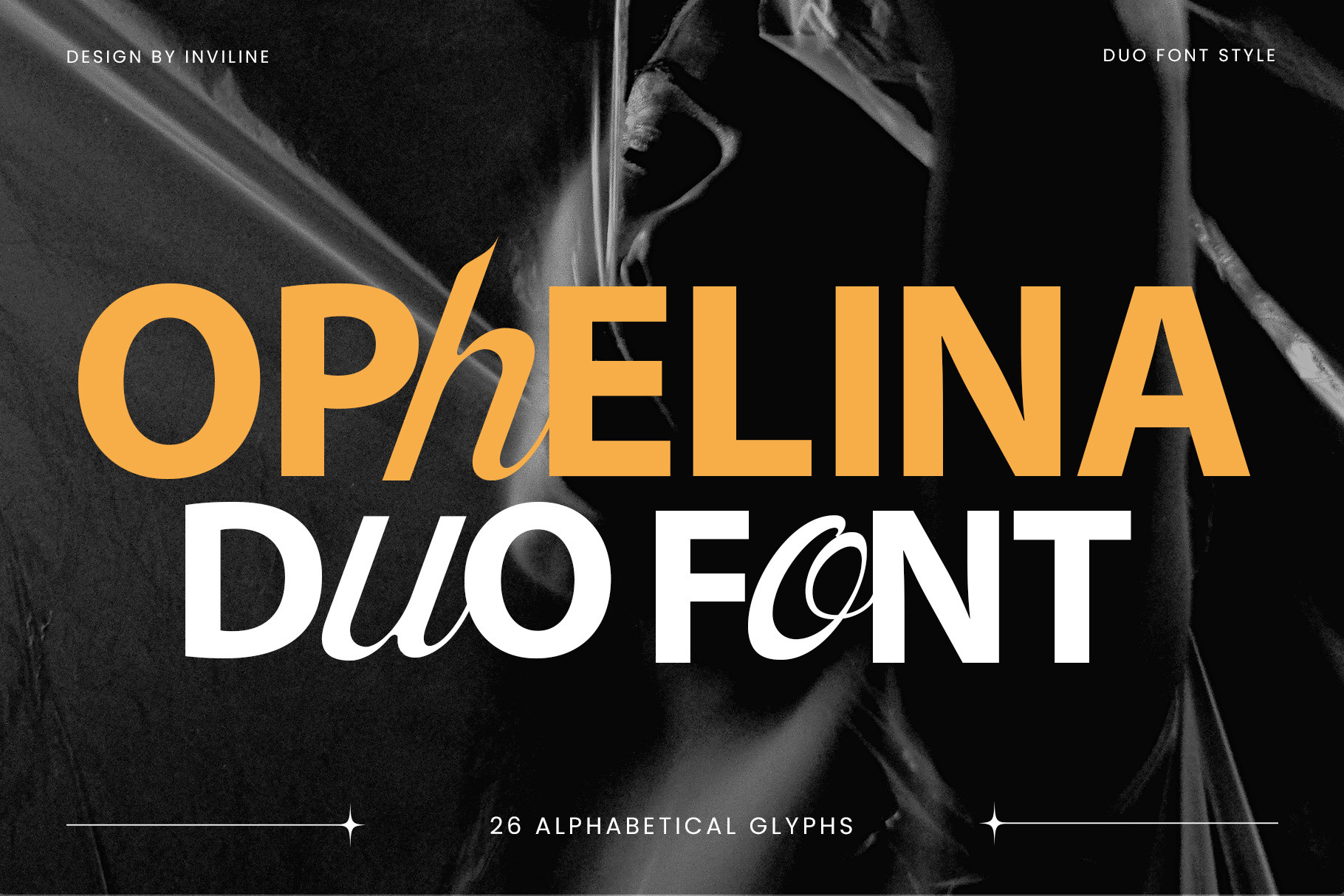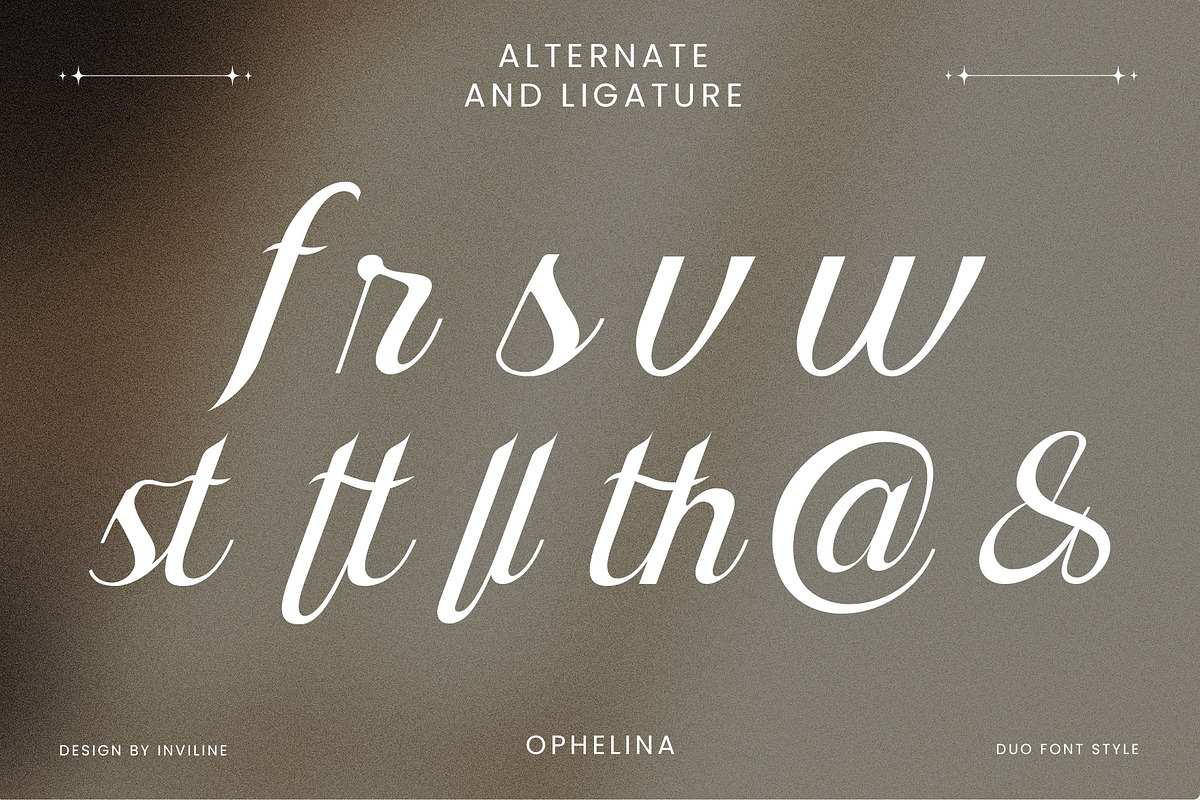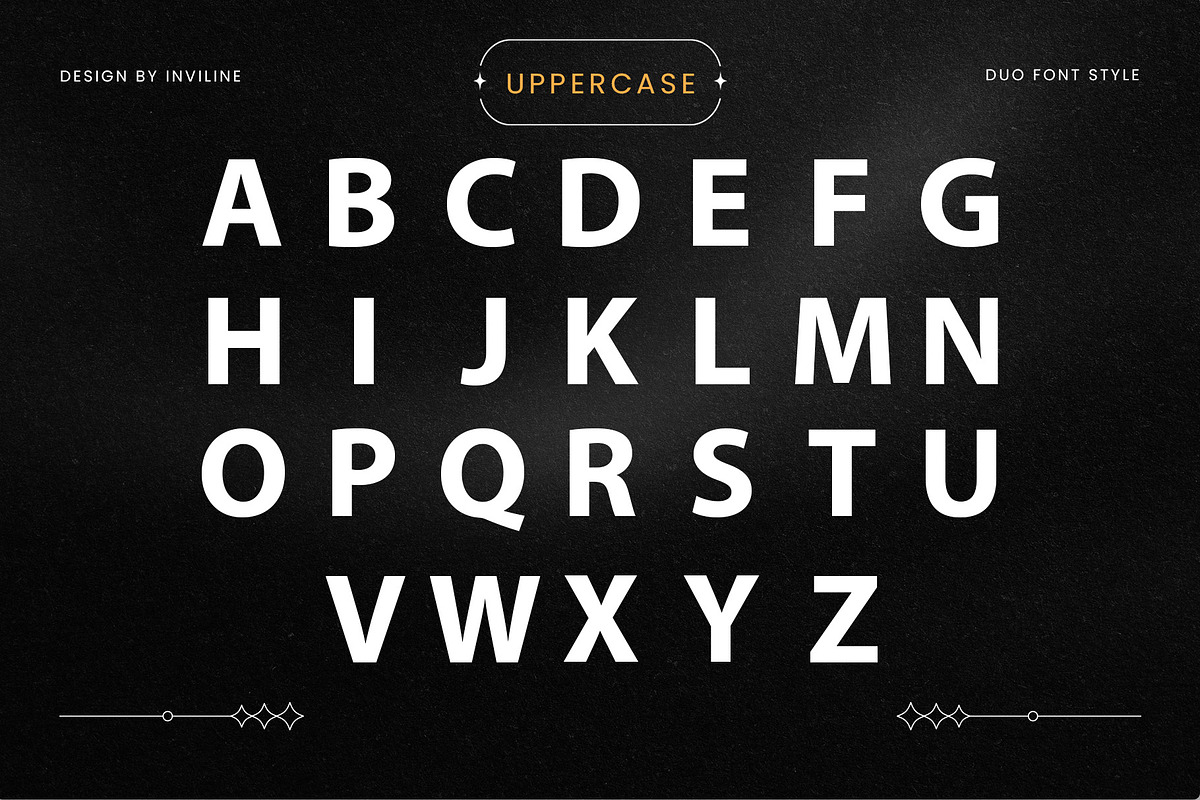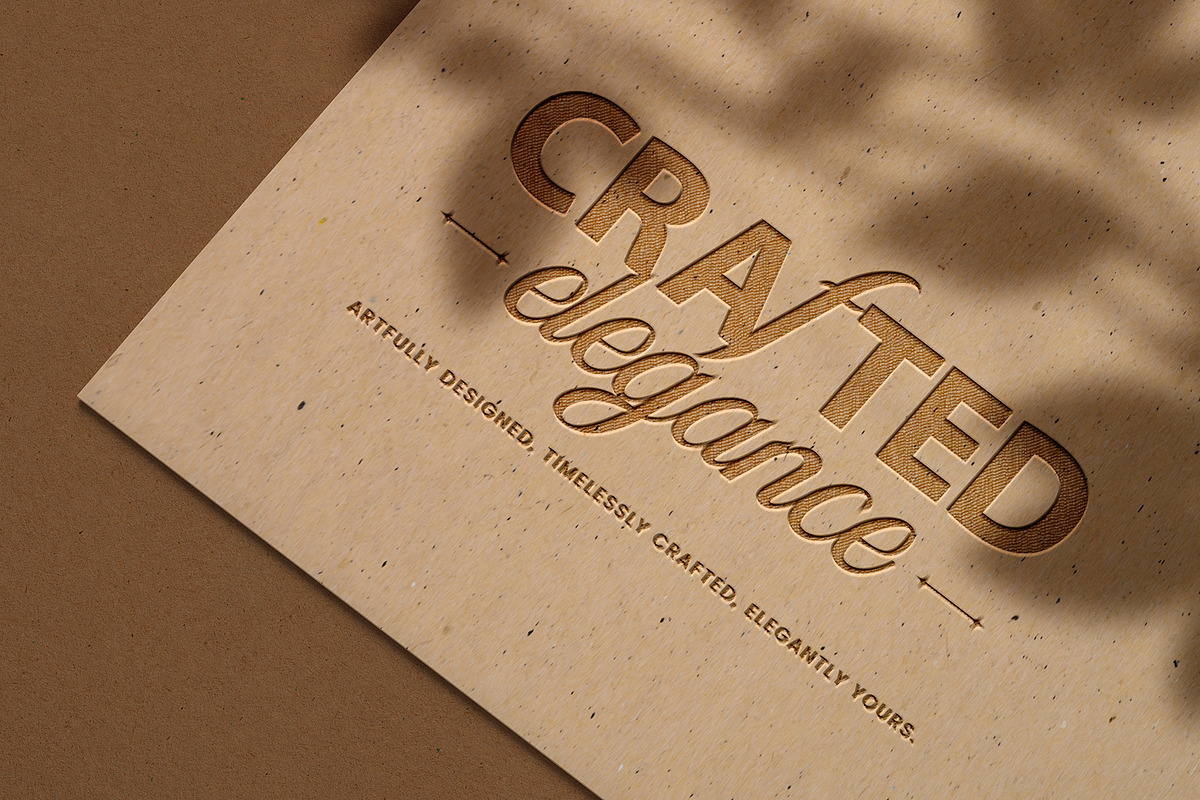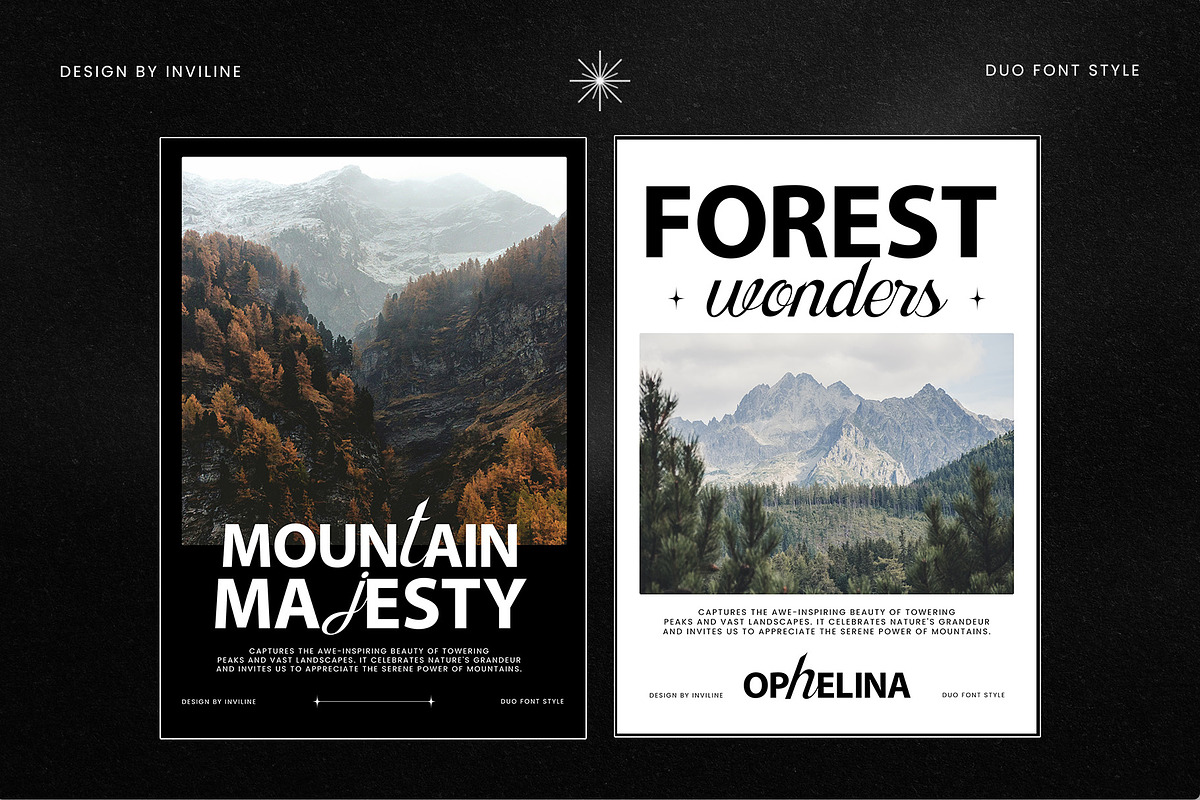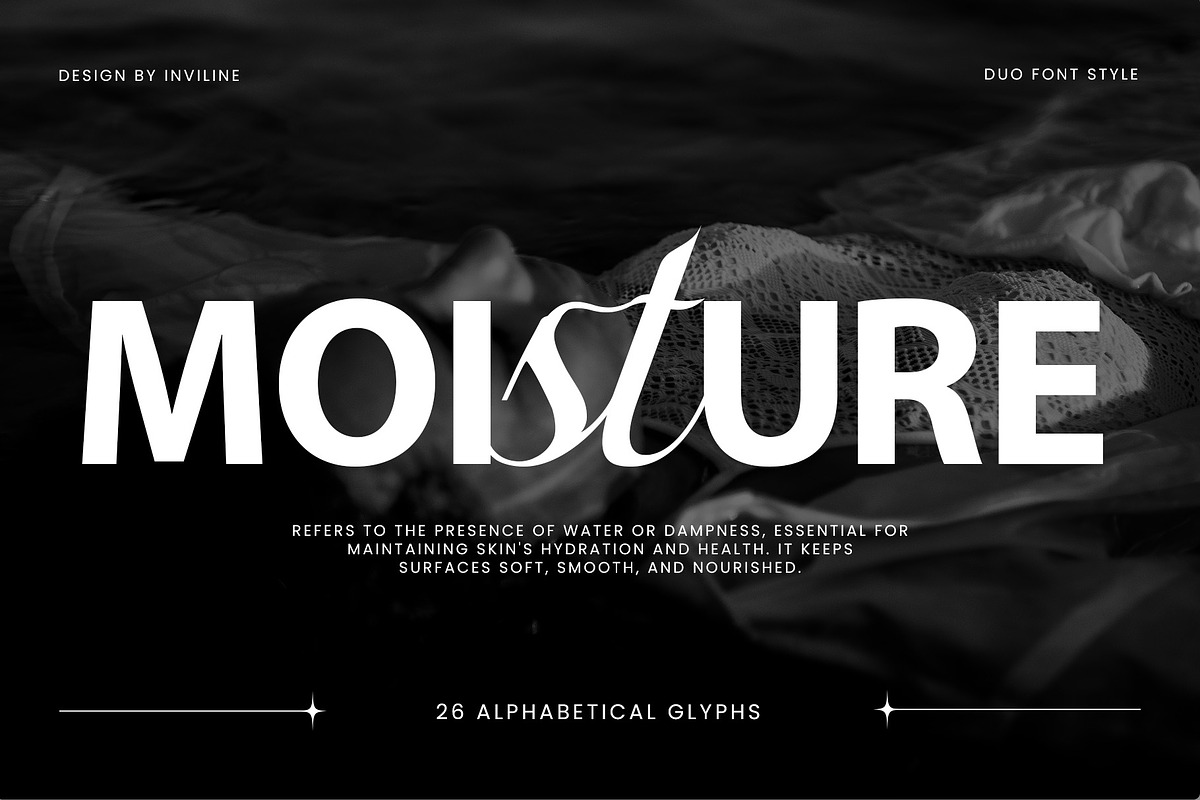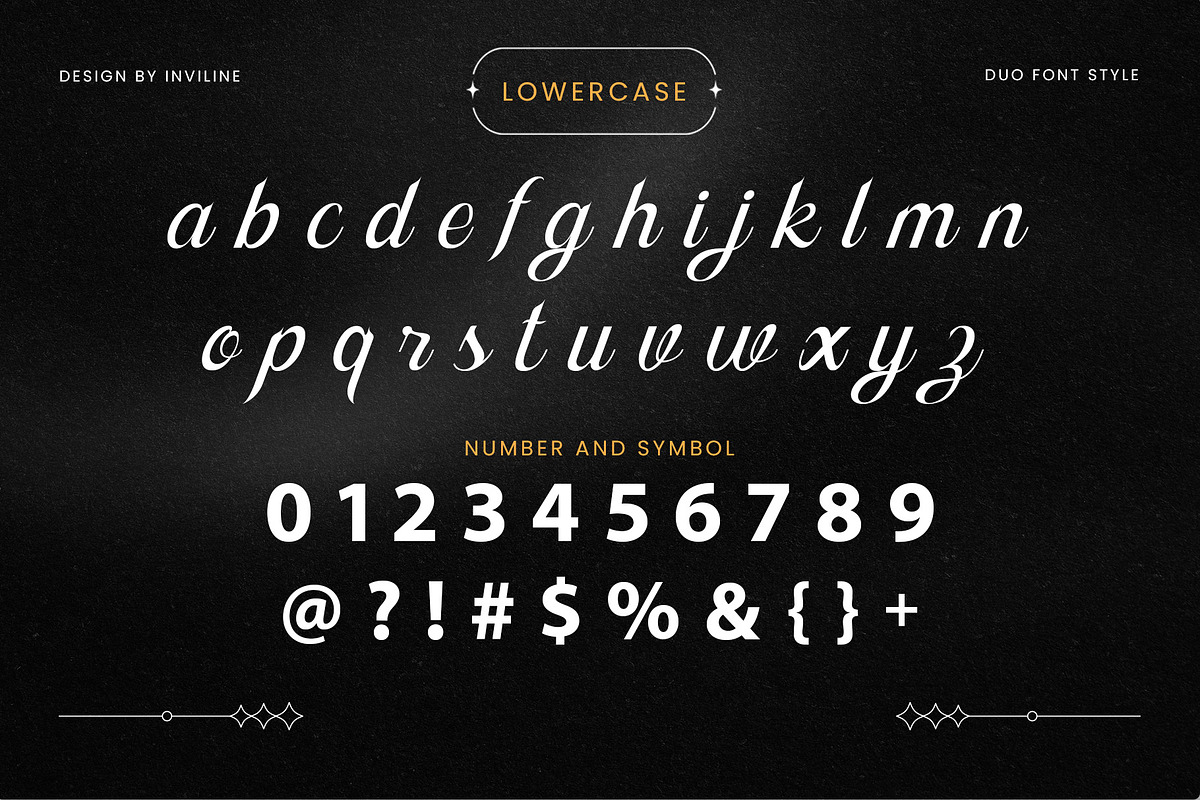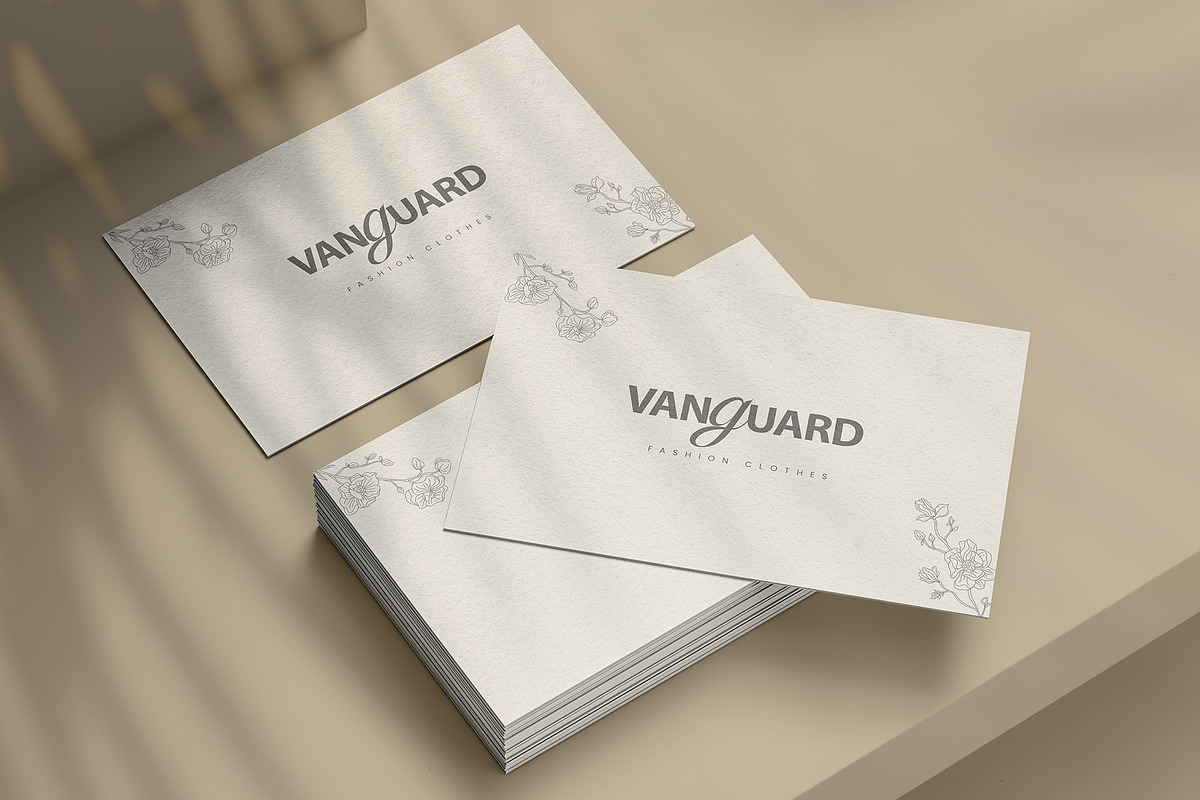
Ophelina - Duo Font
Ophelina is a modern duo font family that combines a bold, clean sans serif with an elegant high-contrast serif companion. Together, these two styles create a sophisticated typographic system designed for contemporary branding, fashion editorials, premium packaging, and striking display compositions.
The strong sans serif provides confidence and clarity, while the refined serif adds elegance, movement, and distinctive editorial character. The result is a versatile pairing that can move effortlessly between minimal, luxurious, and fashion-forward layouts.
Ophelina is designed around contrast. The bold sans serif works beautifully for strong headlines, logos, and structured information, while the serif style introduces expressive curves and refined details for accent words, editorial titles, and sophisticated typography.
The two styles can be used individually or combined within the same composition to create natural hierarchy and visual interest.
With uppercase and lowercase characters, numerals, punctuation, ligature features, and multilingual support, Ophelina provides a flexible foundation for both print and digital projects.
Ophelina Sans Serif Font
Ophelina Serif Font
2 coordinated font styles
Uppercase characters A–Z
Lowercase characters a–z
Numerals 0–9
Standard symbols and punctuation
Ligature characters
Multilingual accented characters
Coordinated serif and sans serif duo
Bold modern sans serif construction
Elegant high-contrast serif companion
Strong editorial personality
Clean contemporary proportions
Uppercase and lowercase alphabets
Complete numerals
Standard symbols and punctuation
Ligature support
Multilingual character support
Strong typography hierarchy within one family
Suitable for print and digital applications
Ideal for logos, headlines, editorial titles, and short phrases
Works beautifully with fashion, beauty, luxury, and minimalist imagery
Easy to combine across the two included styles
Stylistic Alternates: no dedicated alternate-character set is clearly confirmed from the supplied preview
Ligature examples visible in the preview: fr, sv, uv, st, tt, ll, th
18 Ligature Pairs: st, br, cr, ct, fr, ist, op, or, ox, th, Tr, tt, wn, ff, fi, fl, ffi, ft — only publish the complete list if every pair is included and tested in the final font files
Multilingual Support: Western European characters with diacritics (À, Á, Â, Ç, É, Ñ, Ø, Ü, etc.)
Use the sans serif style for bold headlines, logos, navigation, product names, and structured information. Use the serif style for elegant accent words, editorial titles, luxury messaging, and decorative typography.
Combine both styles in the same layout to create contrast and hierarchy. The pairing works particularly well when a bold sans serif title is balanced with a more expressive serif word or phrase.
Best used at medium and large display sizes
Fine serif details may lose clarity at very small sizes